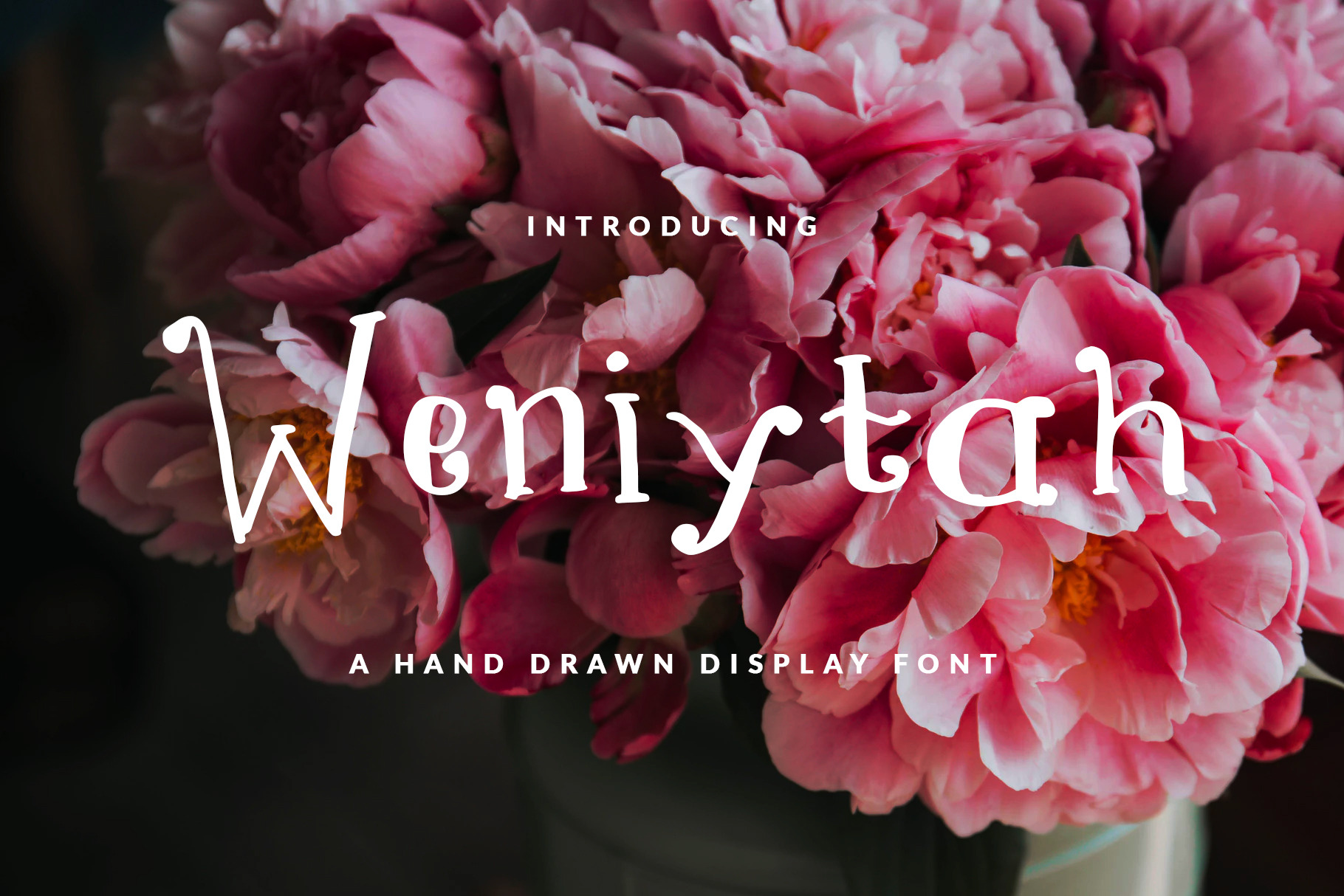
WENIYTAH FONT GIRLY & FUN
Sans serif hand-drawn display font called WENIYTAH was designed for modern, classic, feminine, unique and other style also fit for Header website, general use for header text, kids stories, books, poems and other long text